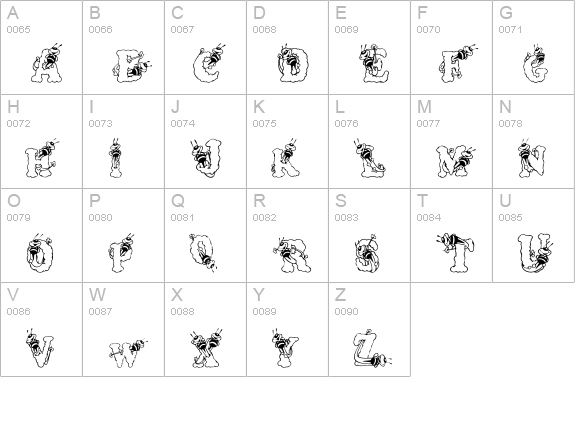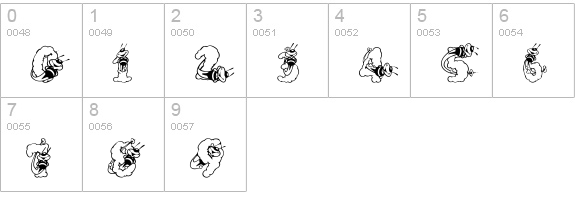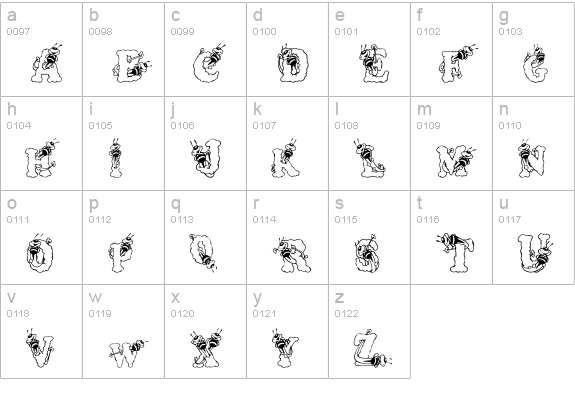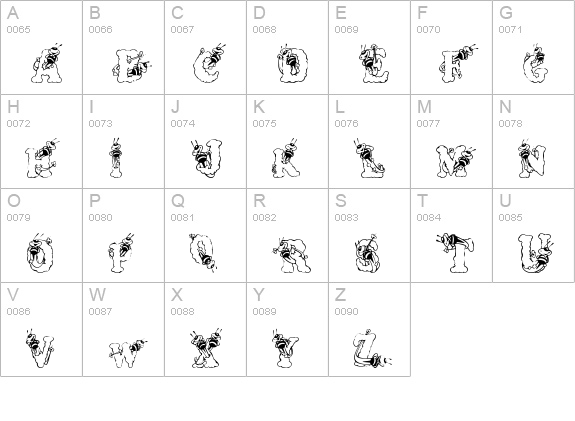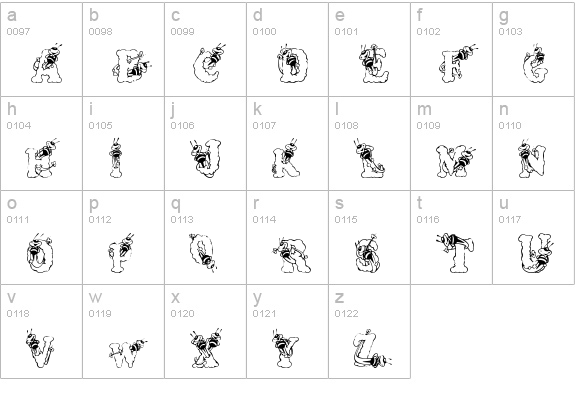
AlphaBizzyBee Font Details
Introducing AlphaBizzyBee font, a whimsical and playful typeface that exudes charm and creativity. With its unique blend of modernity and retro vibes, this font is perfect for adding a touch of personality to your designs. Each letter is carefully crafted with a hand-drawn feel, making it stand out from the crowd. The best part? AlphaBizzyBee font is available for free download at FontsMarket.com. Whether you're working on a branding project, poster design, or social media graphics, this font will surely make your creations pop. Embrace the creative possibilities with AlphaBizzyBee font and let your imagination soar.